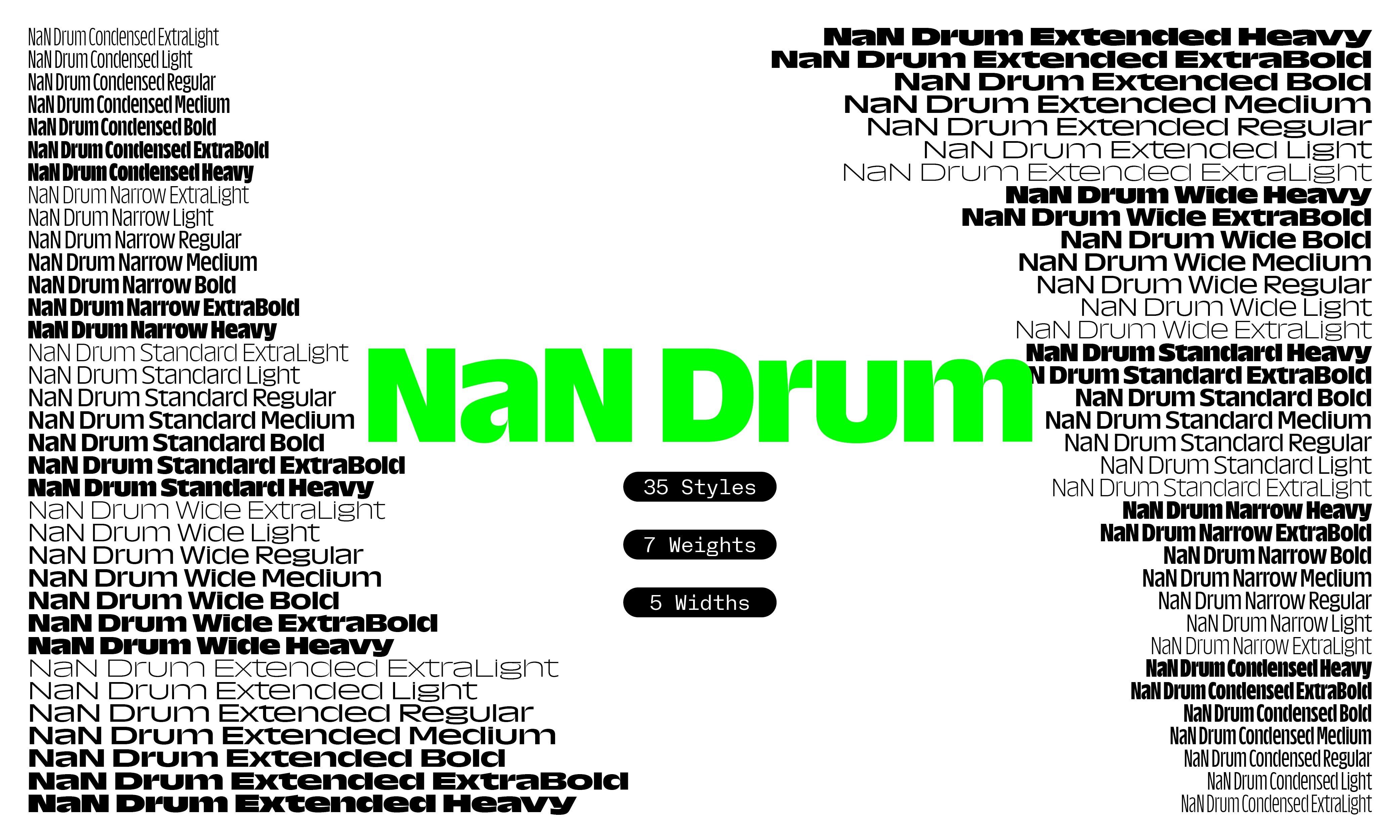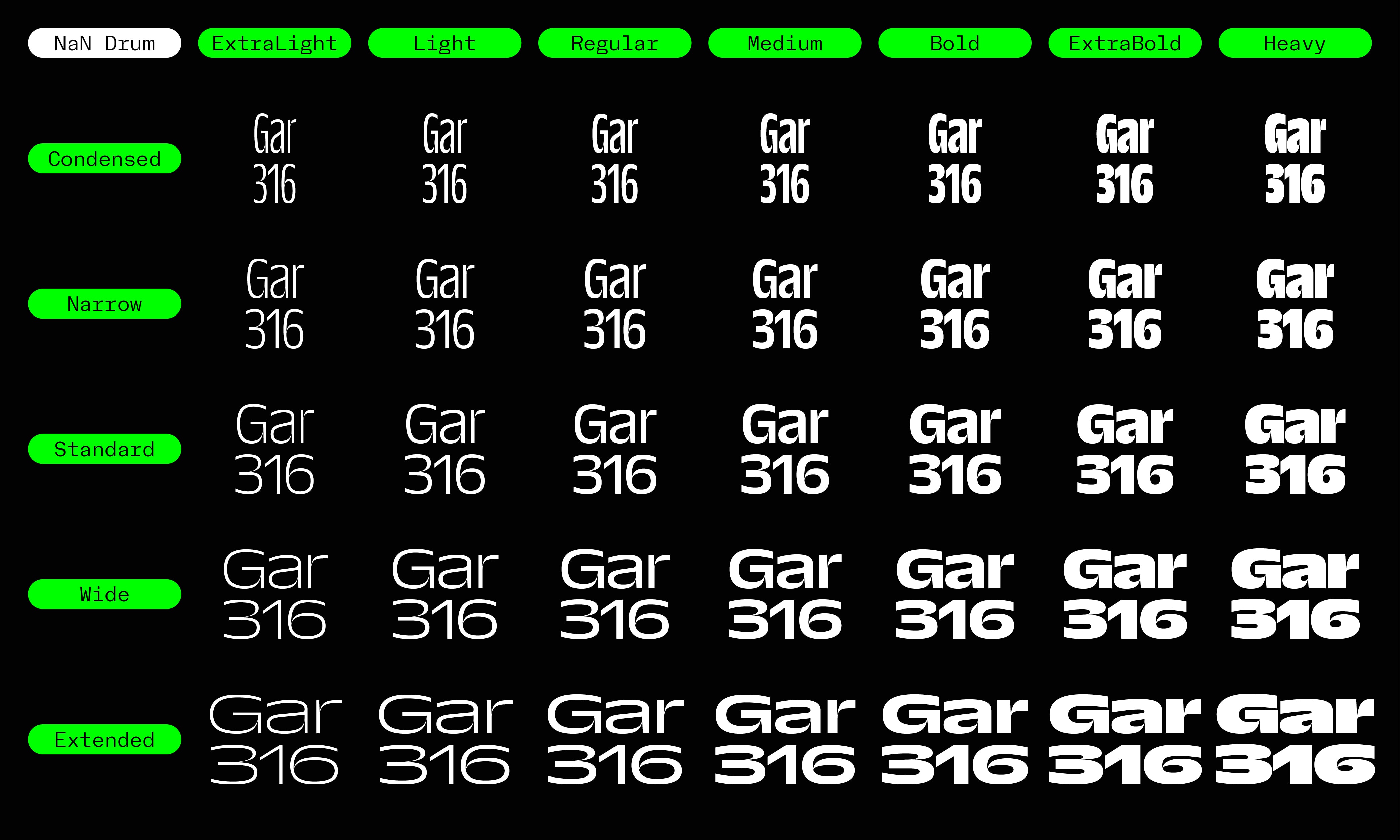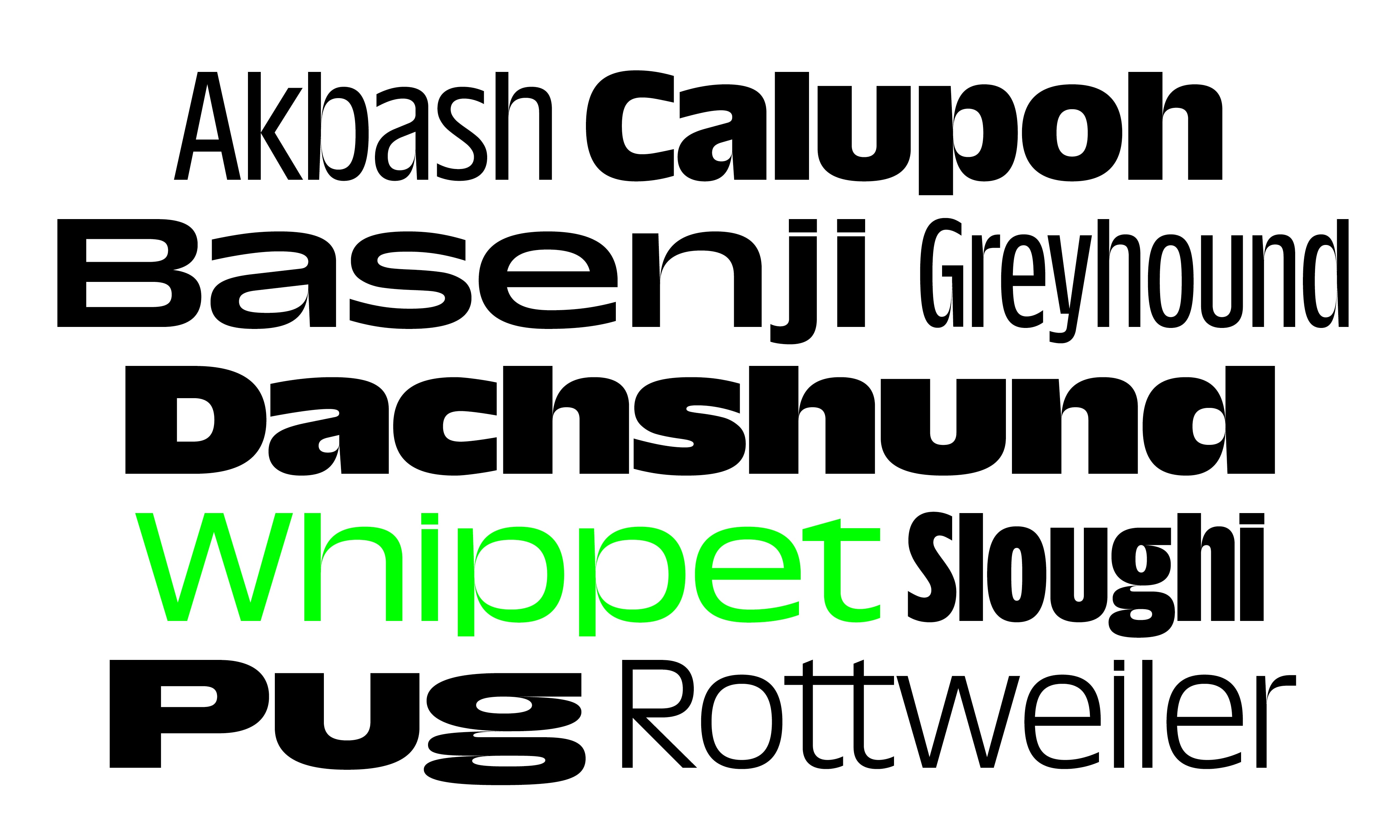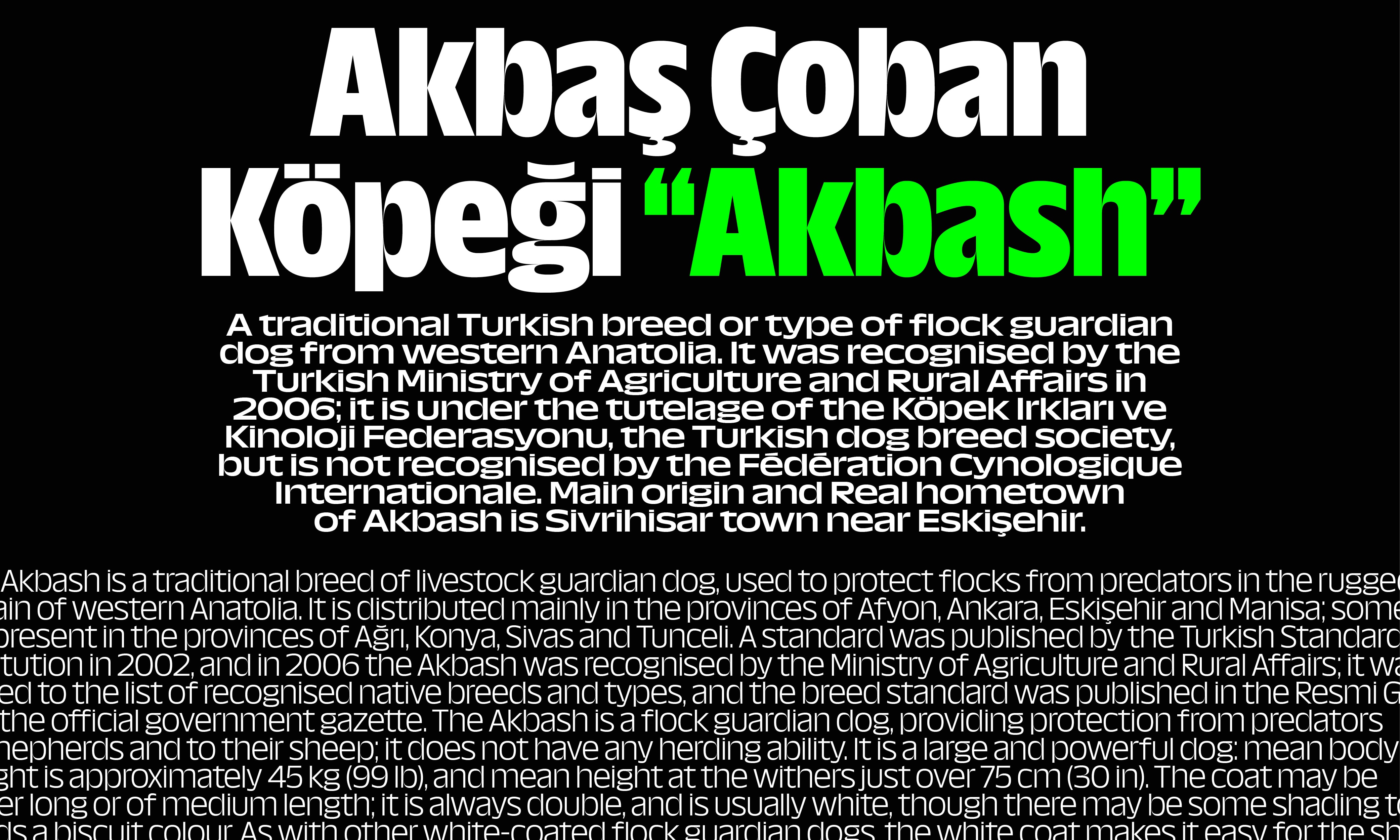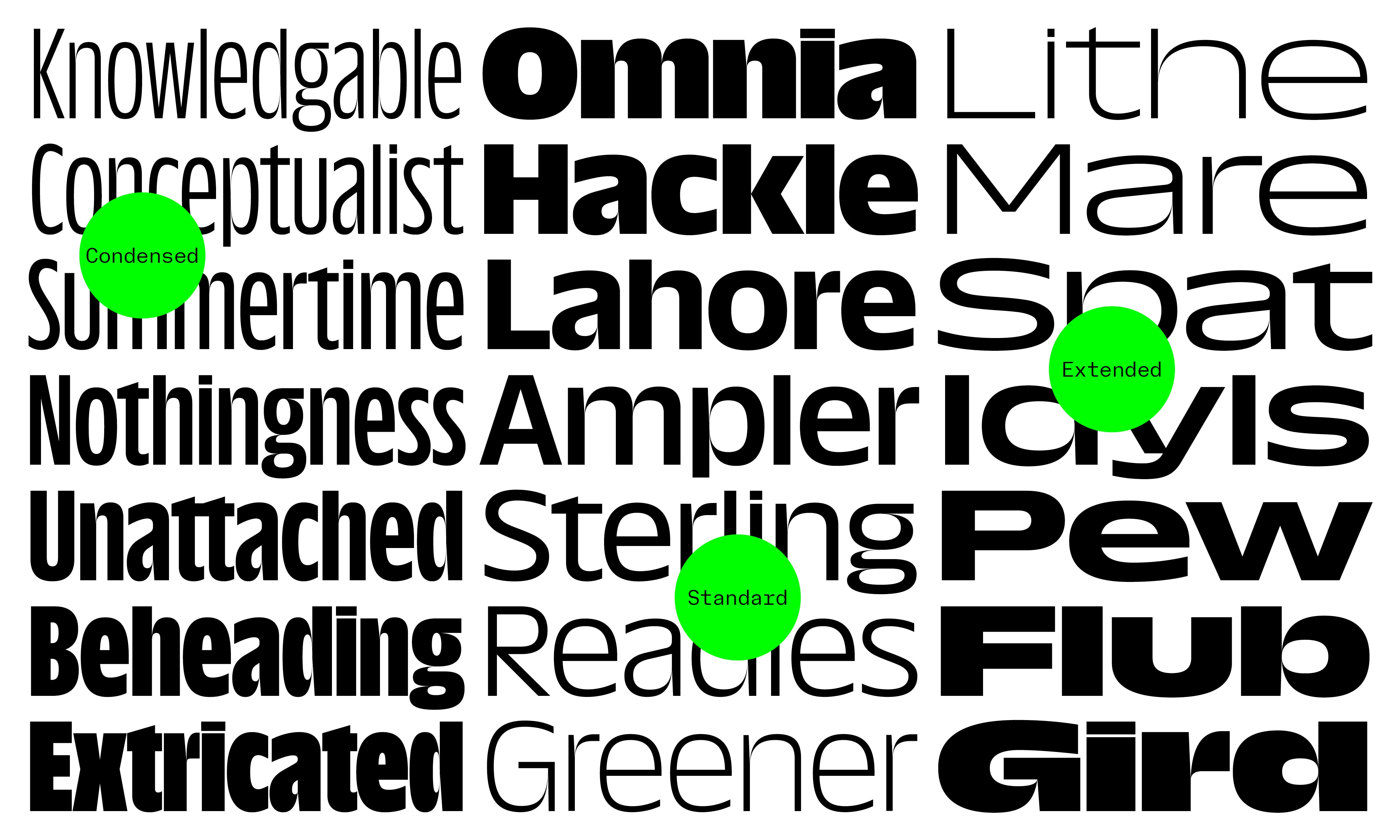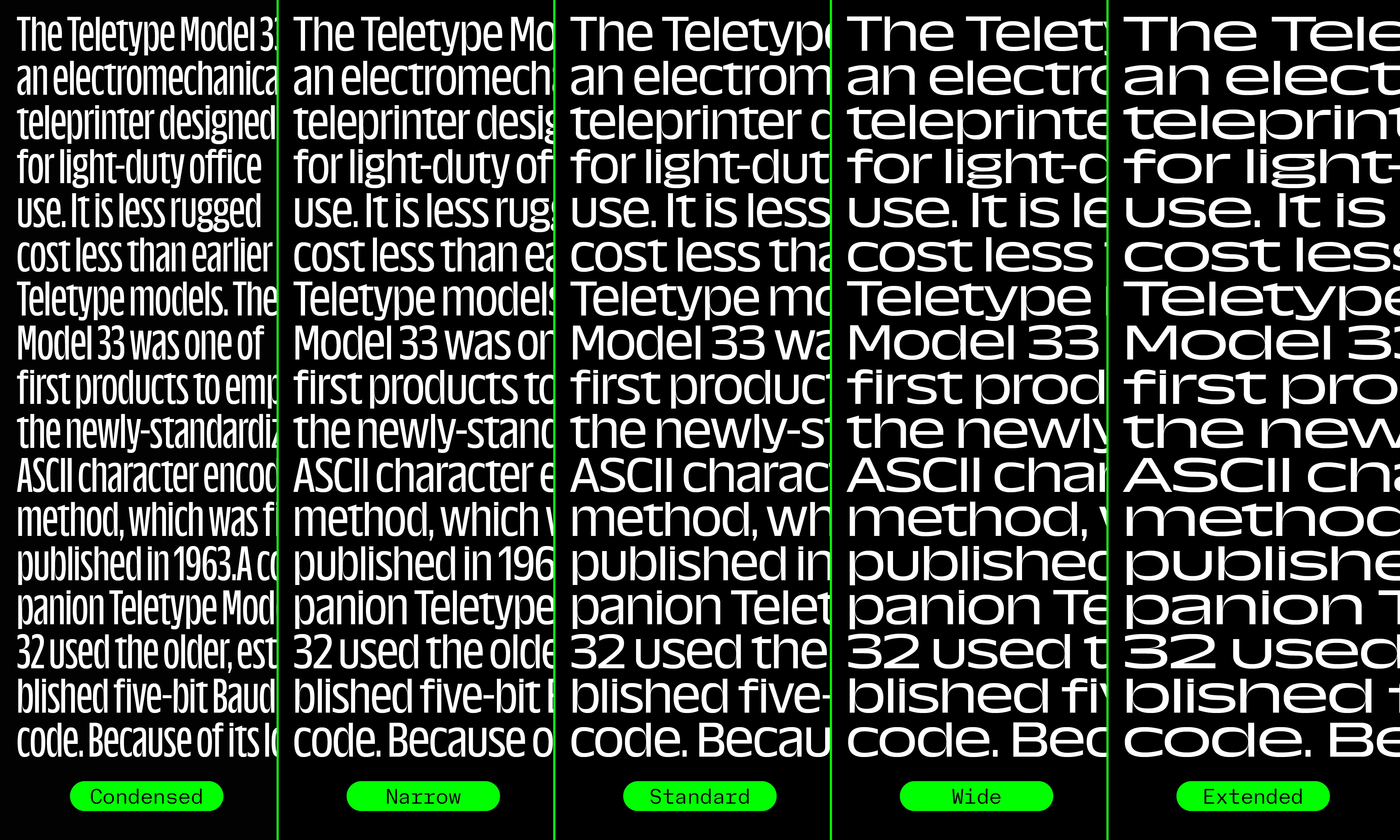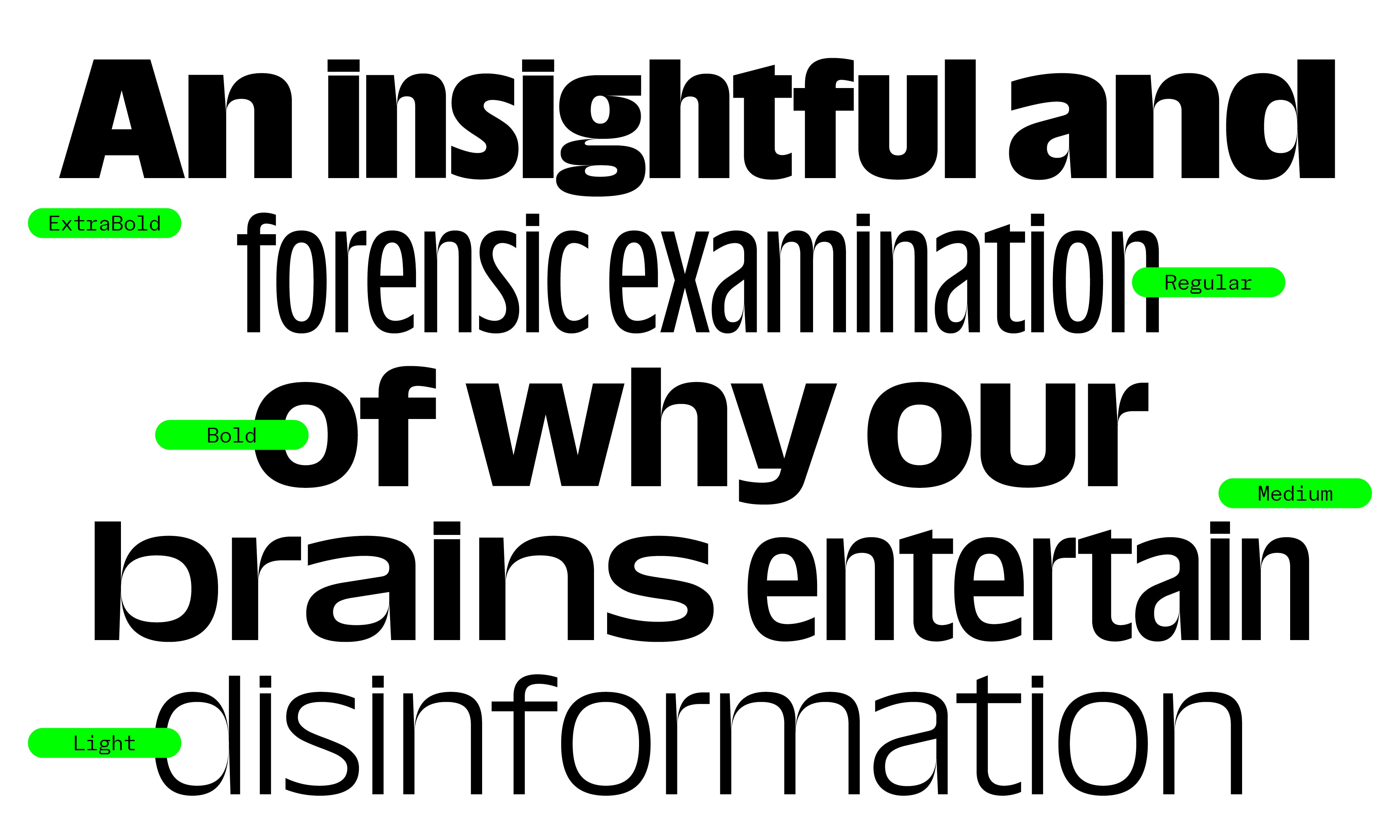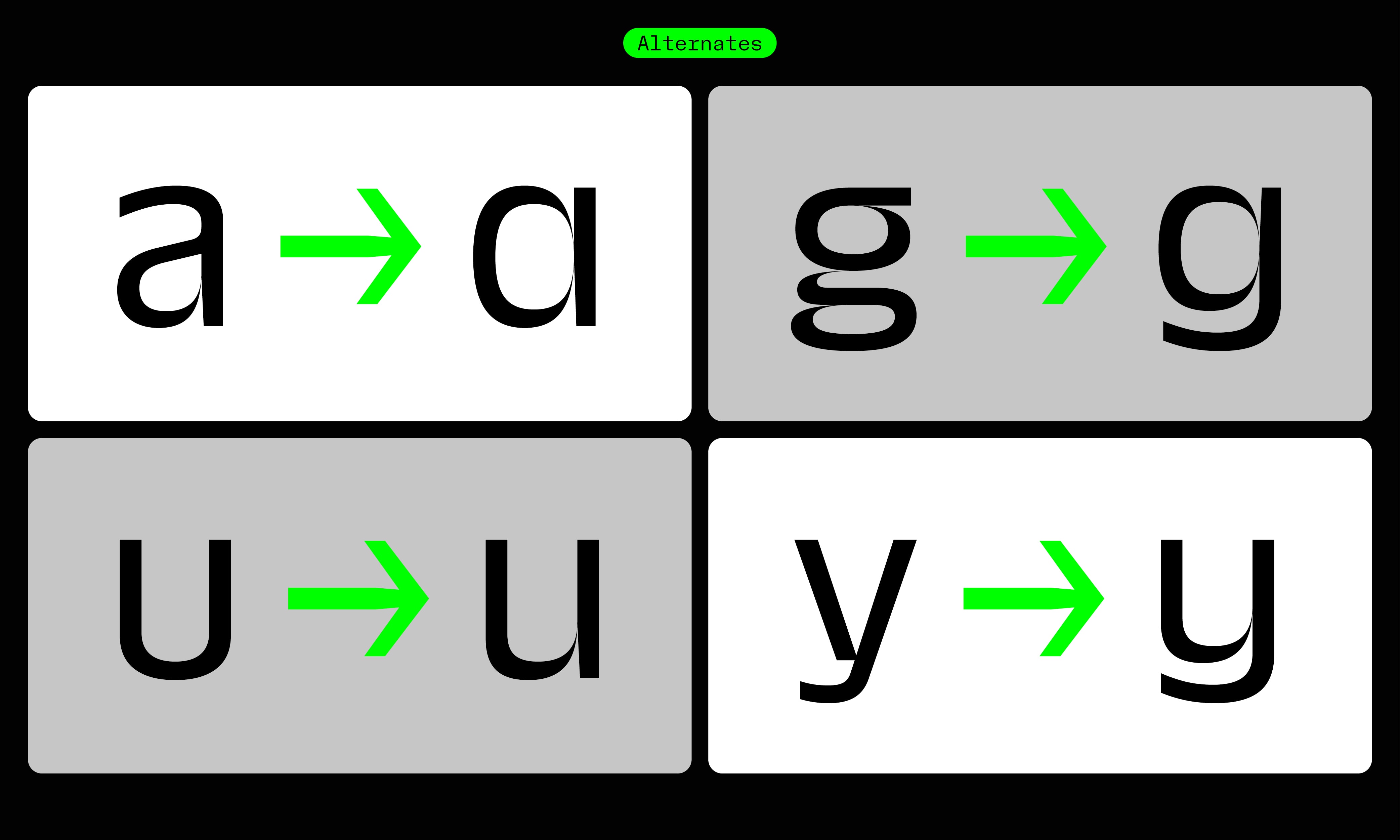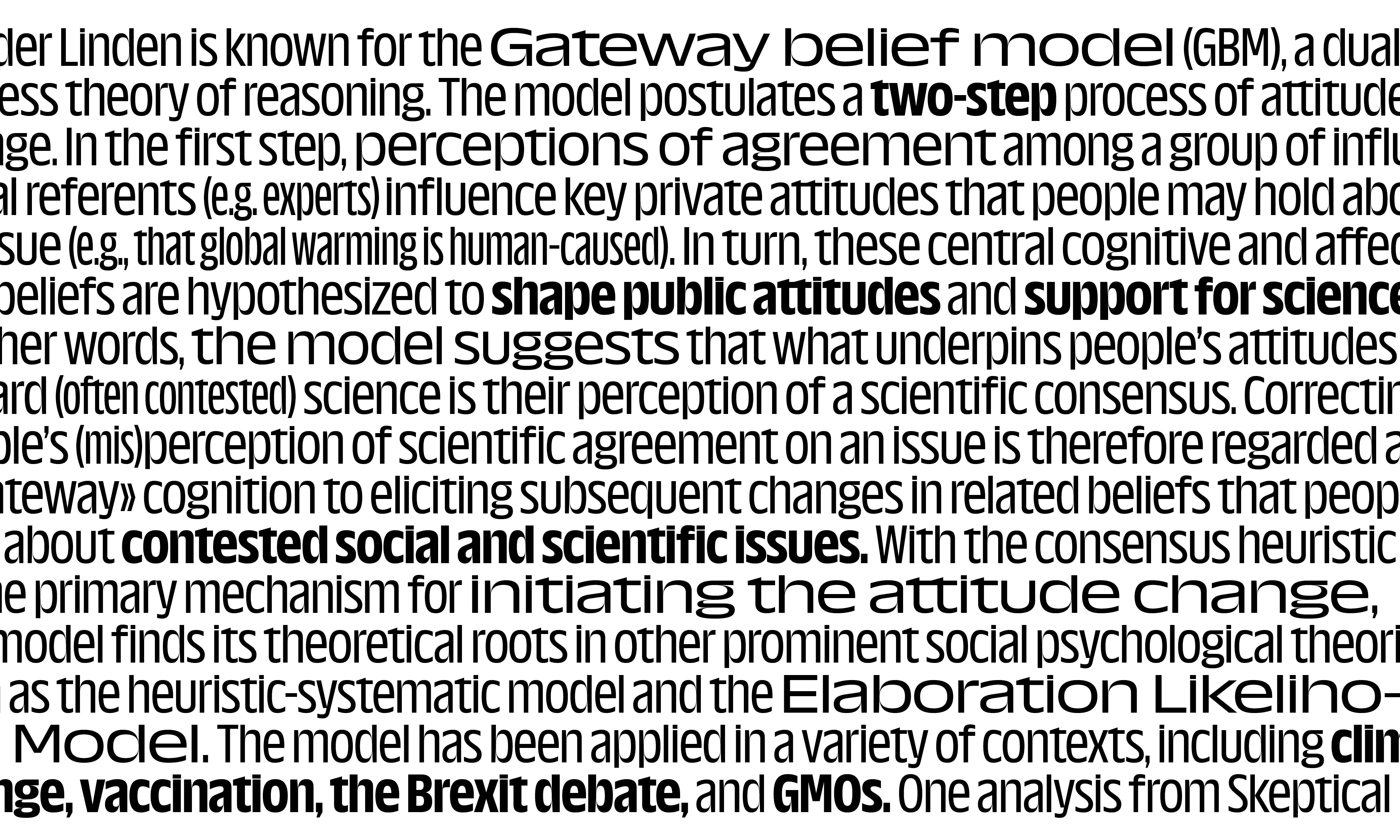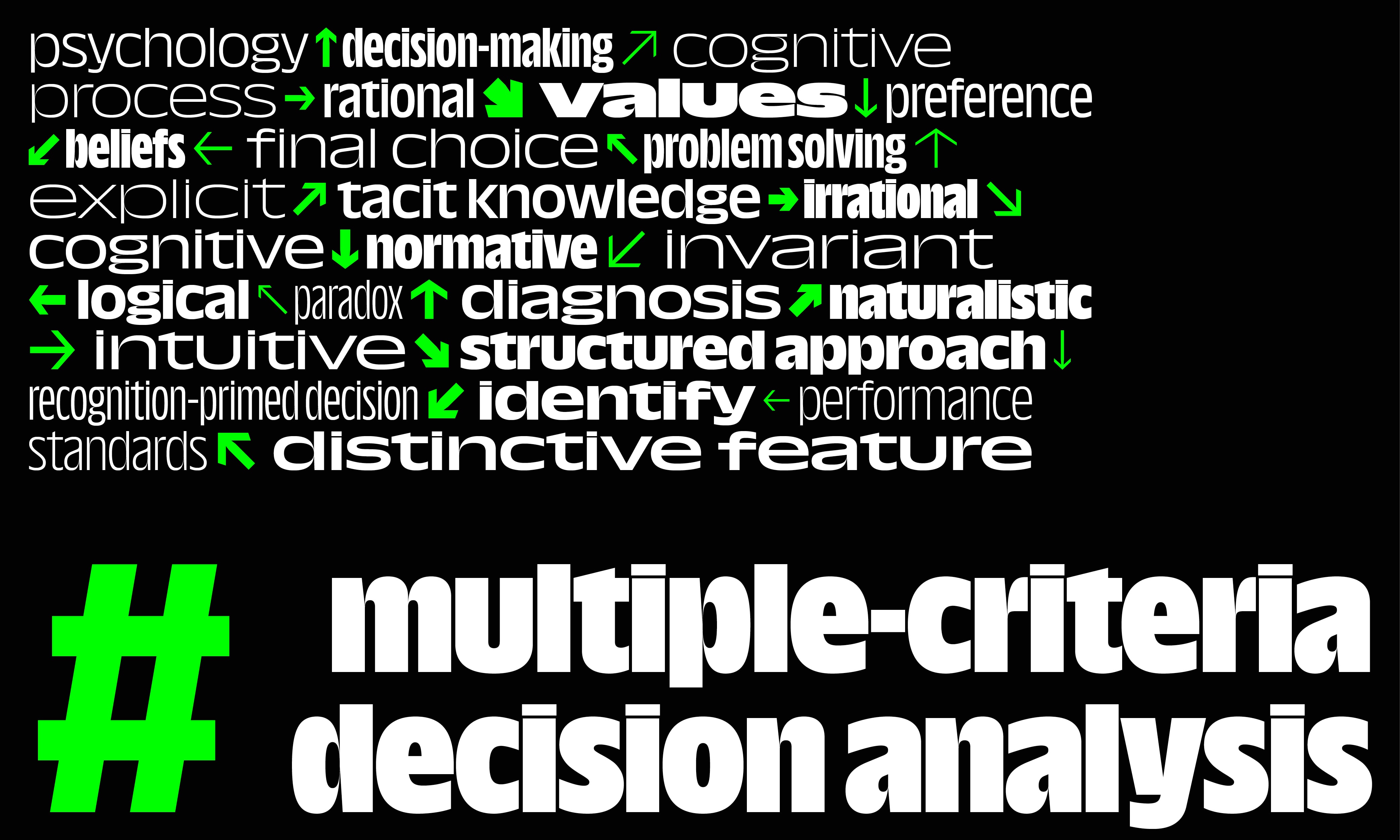
About NaN Drum
NaN Drum, a big-x-height humanist sans in many widths and weights.
Typeface: NaN Drum
Designed by NaN
NaN Team: Hugues Gentile, Fanny Hamelin, Fadhl Haqq, Léon Hugues, Jean-Baptiste Morizot, Luke Prowse
Additional Engineering: Igino Marini
Year: 2025-2026
Languages: Supporting 324 Latin-based languages